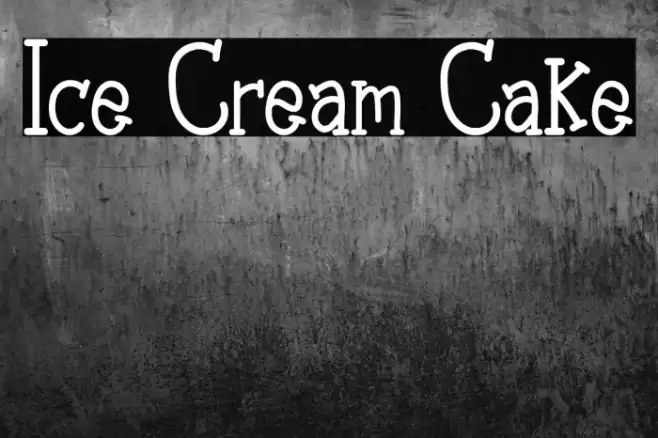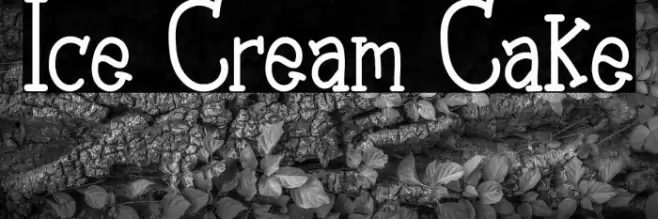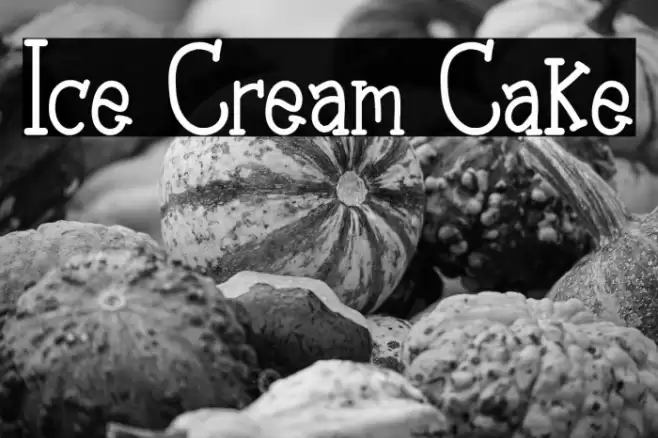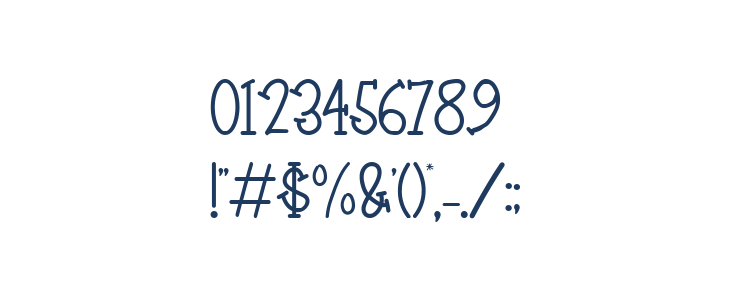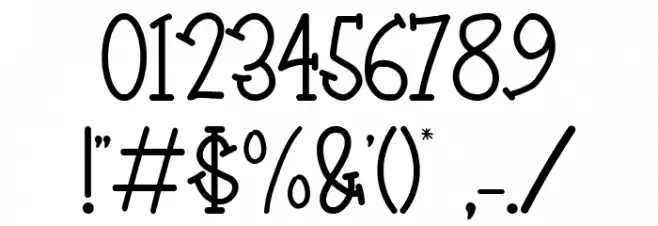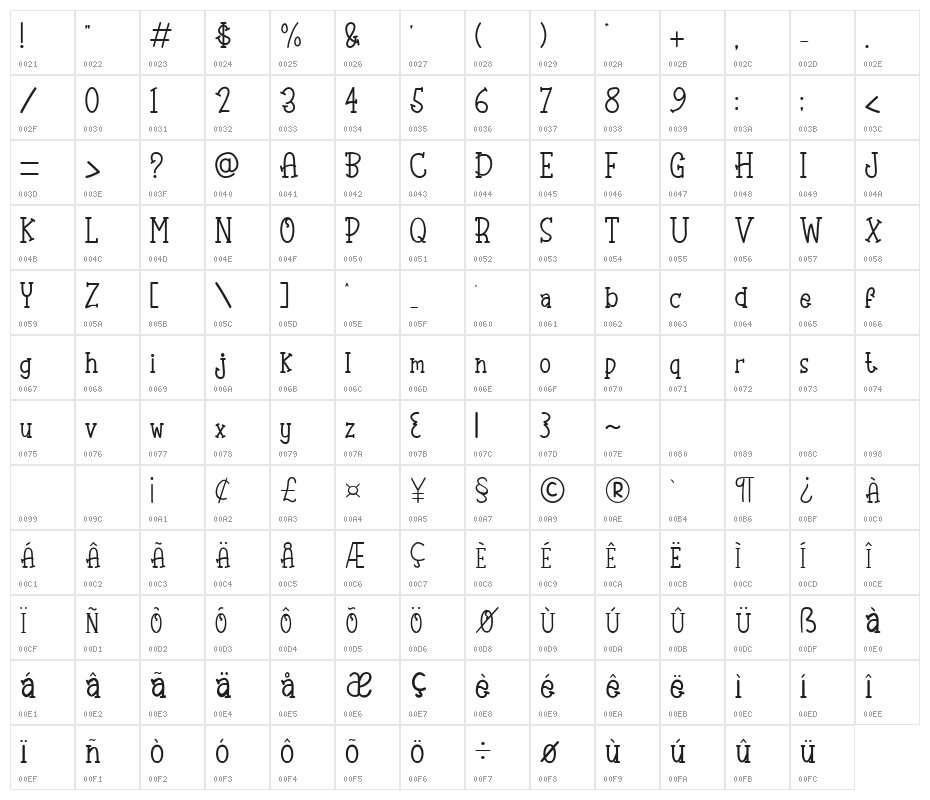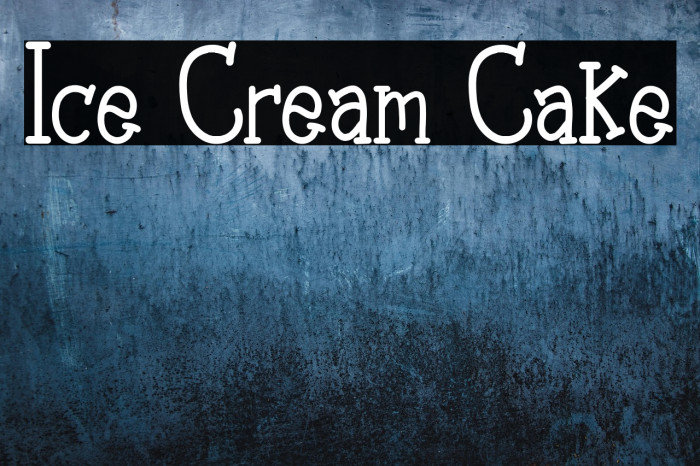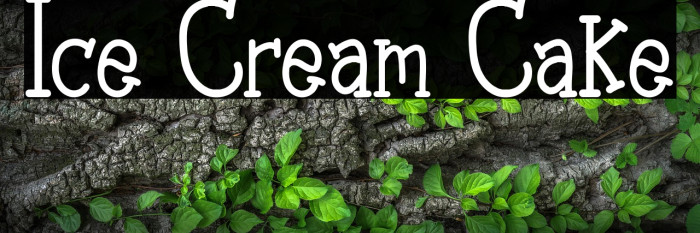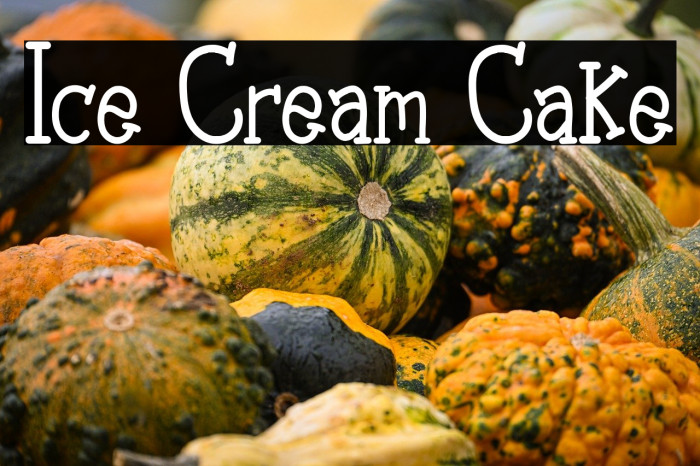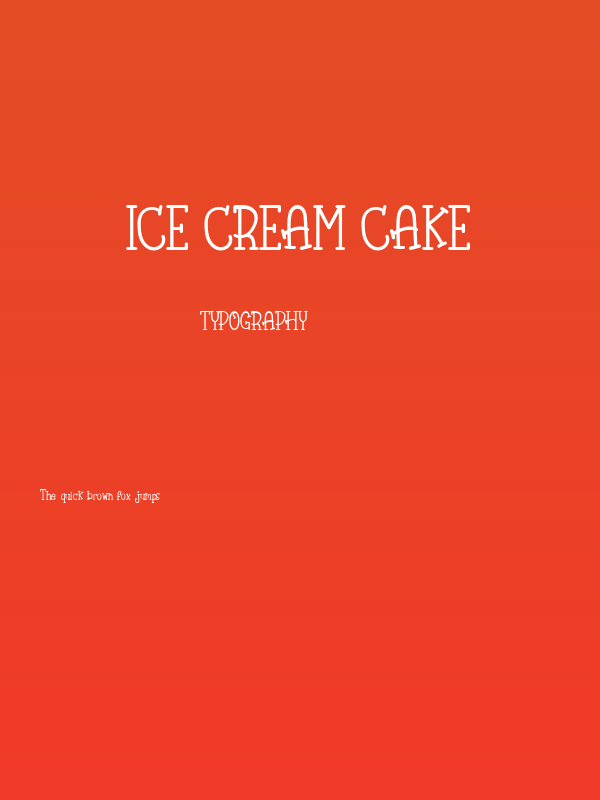
Ice Cream Cake Font
Ice Cream Cake Description
This playful and whimsical font features a unique blend of rounded and slightly irregular letterforms, giving it a hand-drawn appearance. The uppercase letters are bold and prominent, while the lowercase letters maintain a consistent flow with a slightly smaller size. The numerals and special characters are crafted to match the overall playful aesthetic, making them stand out in any design. The font's style is reminiscent of a casual, fun atmosphere, perfect for projects that aim to convey a sense of joy and creativity.
A playful, hand-drawn style font with rounded, whimsical characters from Regular fonts.
- Proposed Projects: Ideal for children's books, playful branding, party invitations, and creative posters.
- Overall Style: Playful
- Use Case: Headlines, Logos, Invitations